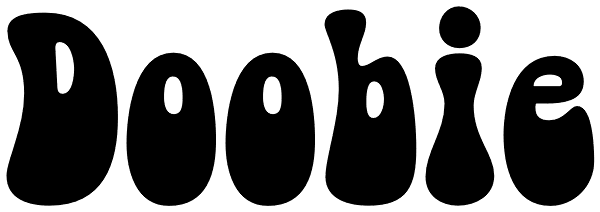
Doobie
One would think the whole hippy thing would have died out after the knighting of Mick Jagger and the selling out of the The Who. Not at Canada Type. We still occasionally read Burroughs and Ginsberg, listen to Dylan and Hendrix, and use the backyard...